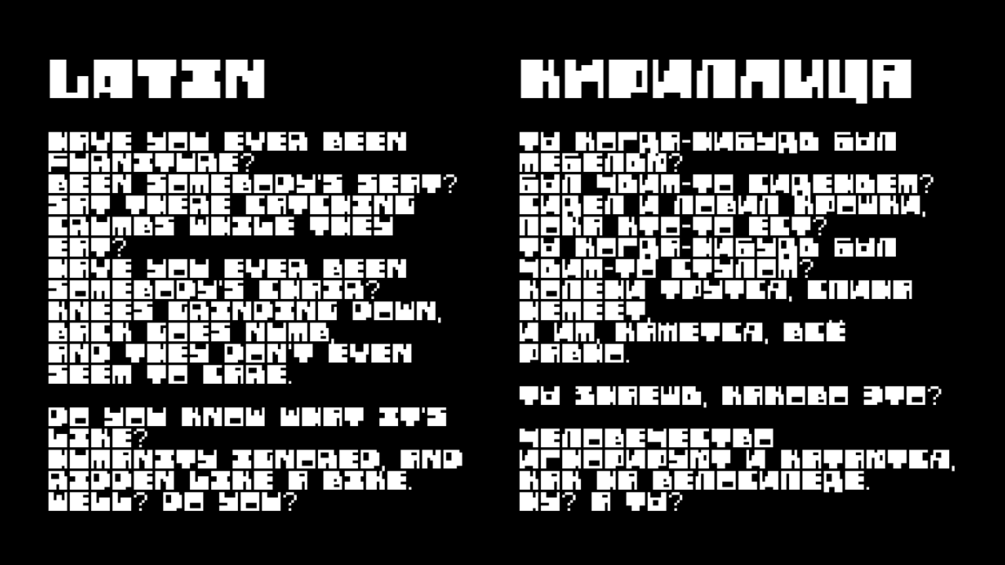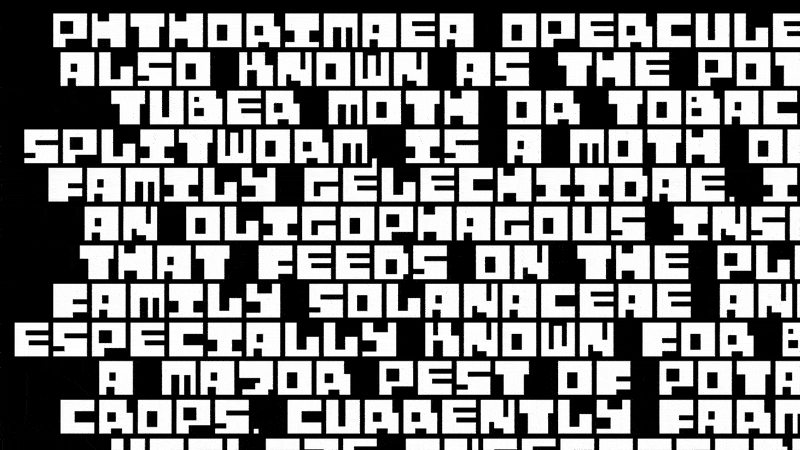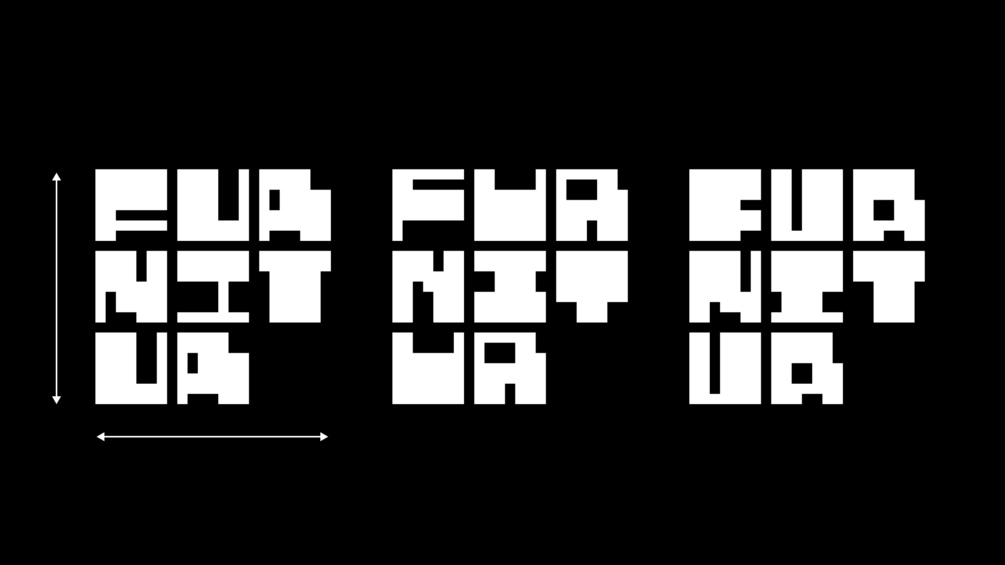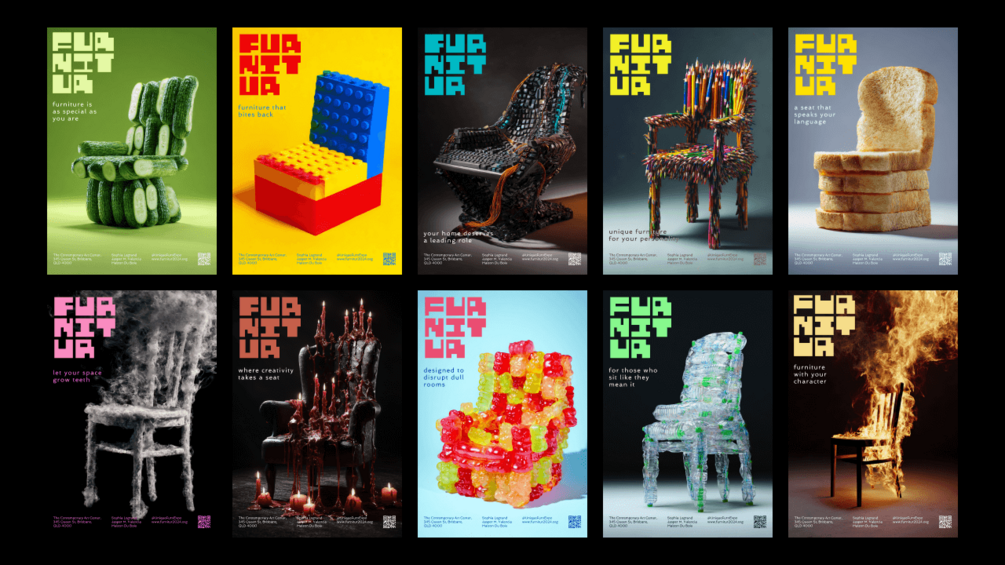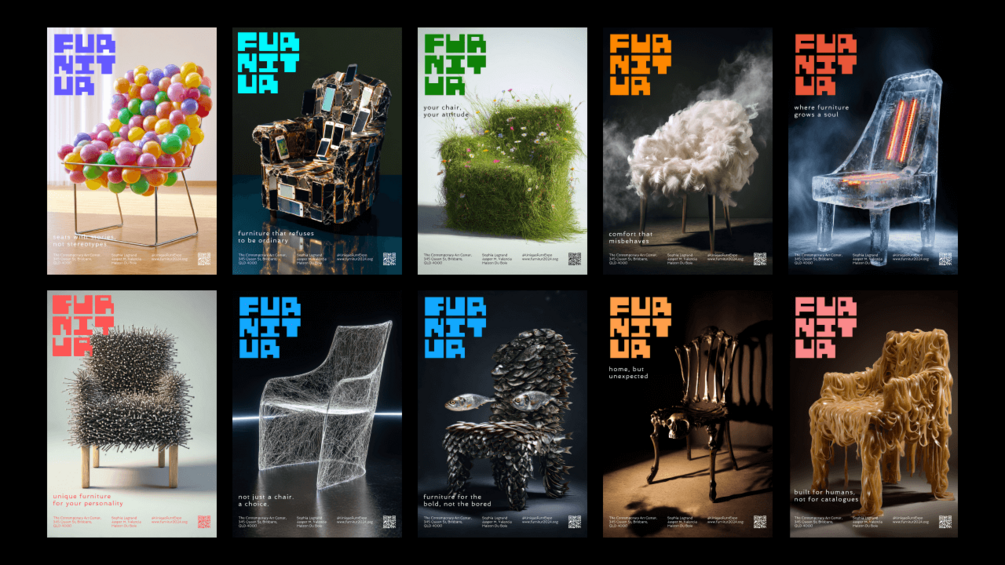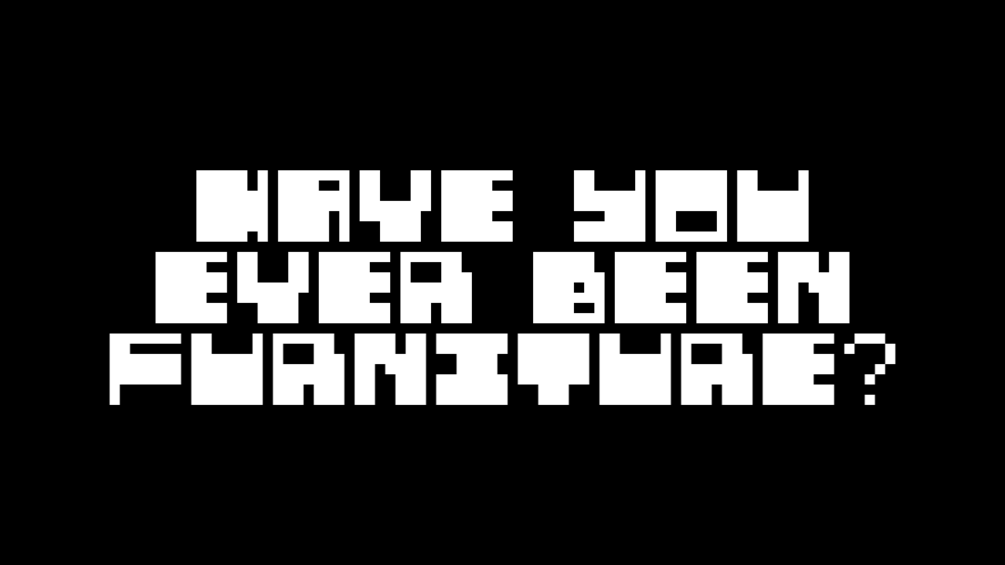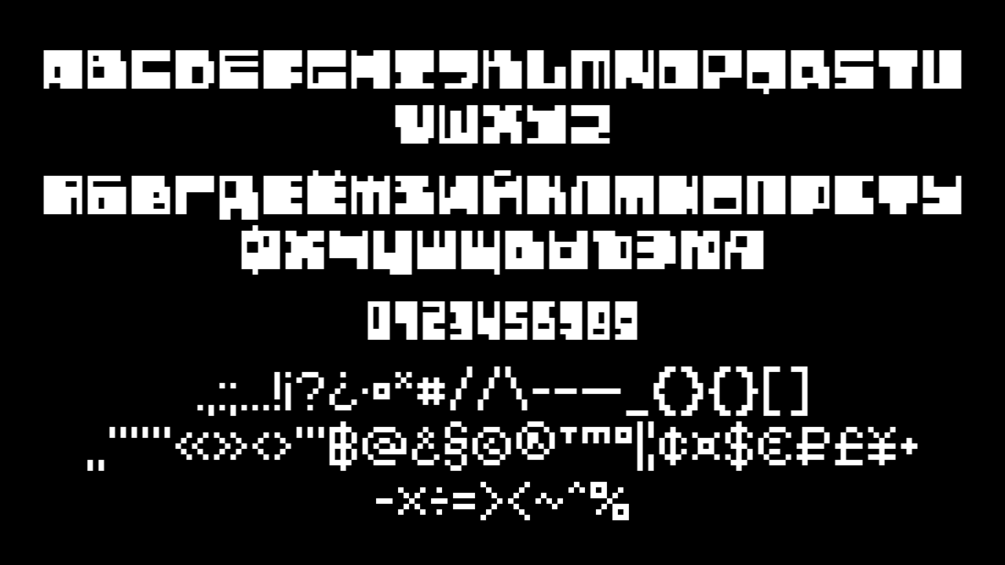
Furnitur - free variable font
Display variable font. Free for both personal and commercial use. Basic Latin and Cyrillic glyphs are included.
Adjusting vertical and horizontal axes, you can easilly get unic letter pattern or nice animation for your designs.